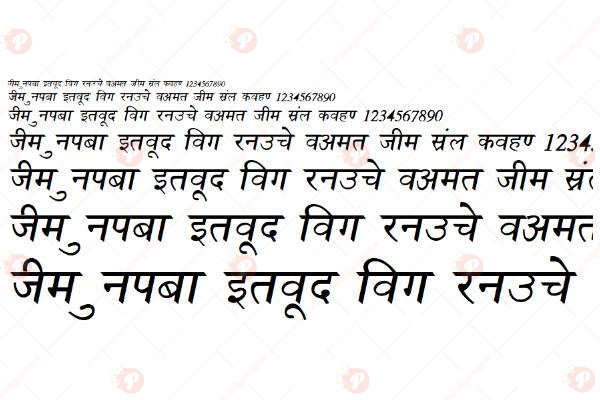
The New Delhi Bold Italic Font combines strength and style in a dynamic Devanagari typeface. Its bold weight and slanted italic design make it perfect for creating eye-catching headlines, posters, invitations, banners, book covers, and social media graphics.
Designed for Hindi, Sanskrit, Marathi, and Nepali text, this font preserves the authentic beauty of traditional Devanagari scripts while adding a modern, expressive flair. Ideal for cultural projects, festivals, and devotional content.
Supported Script: Devanagari (Hindi / Sanskrit / Marathi / Nepali)
Font Style: Bold Italic / Slanted / Traditional Typeface
| Optimum Size | Large (Display / Poster) |